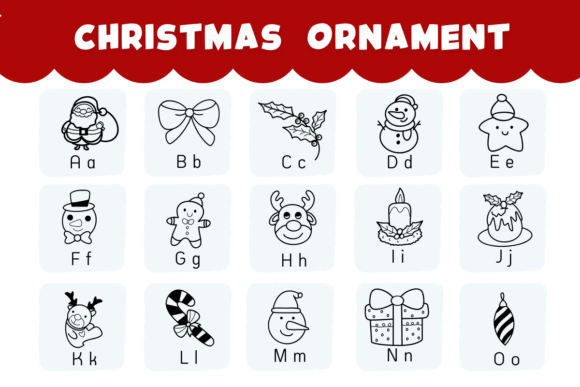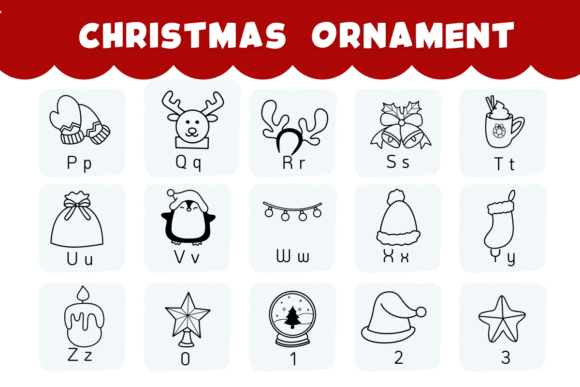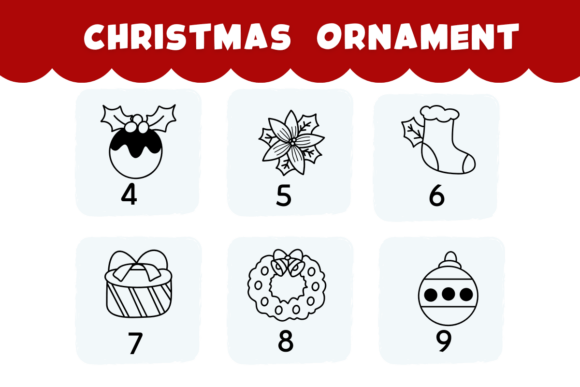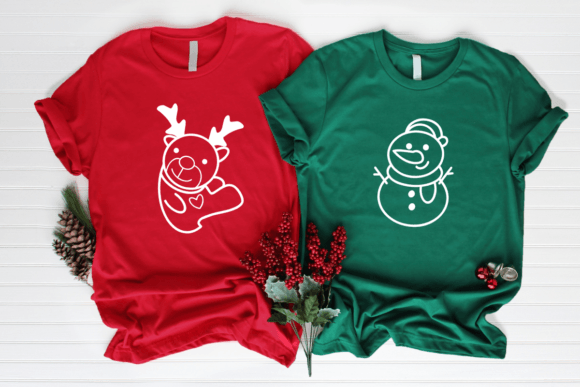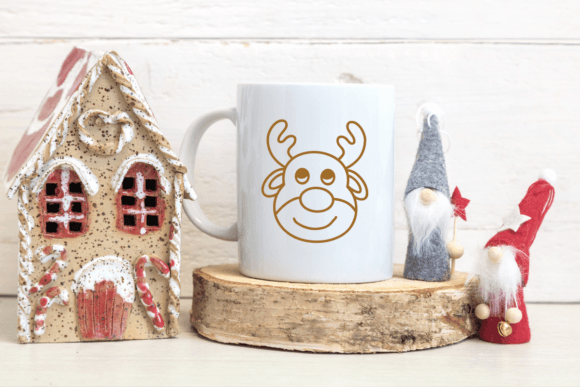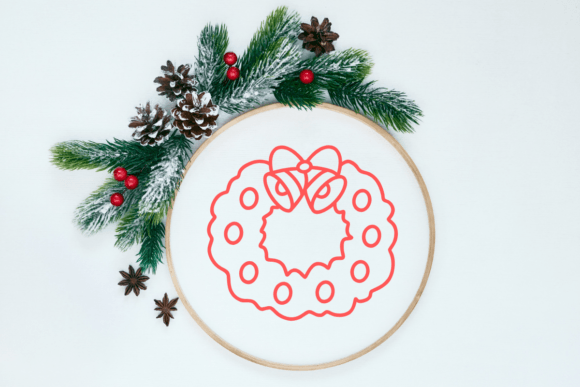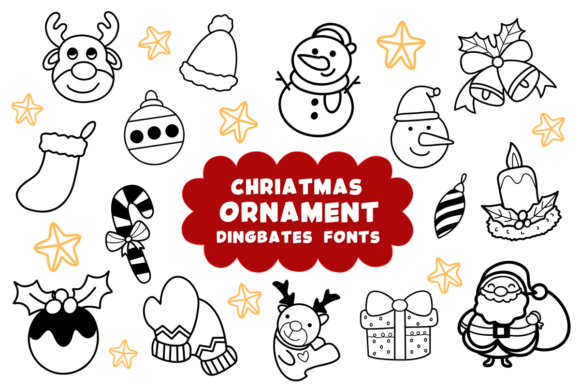
Deck the Halls with Christmas Ornament Font: A Festive Dingbat Font for Your Creative Projects
Are you looking for a unique and festive way to add some holiday cheer to your creative projects? Look no further than the Christmas Ornament Font, a delightful dingbat font that brings the magic of Christmas to your designs. This charming font is perfect for crafters, designers, and anyone looking to add a touch of holiday sparkle to their work.
What is Christmas Ornament Font?
Christmas Ornament Font is a dingbat font that features a wide range of Christmas-themed ornaments, including bells, stars, snowflakes, and more. Each character in the font is carefully designed to resemble a festive Christmas ornament, making it perfect for adding a holiday touch to your projects. Whether you’re creating wedding invitations, DIY crafts, decorations, logos, or any other type of creative project, this font is sure to bring some festive fun to your designs.
Ideas for Using Christmas Ornament Font
So, what can you create with Christmas Ornament Font? The possibilities are endless! Here are a few ideas to get you started:
- Wedding Invitations: Add a touch of holiday cheer to your wedding invitations with Christmas Ornament Font. You can use the font to create festive headers, footers, and even monograms.
- DIY Crafts: Use Christmas Ornament Font to create custom labels, tags, and cards for your DIY crafts. Whether you’re making ornaments, gift tags, or decorations, this font is sure to add a festive touch.
- Decorations: Create custom holiday decorations, such as banners, garlands, and signs, using Christmas Ornament Font. You can use the font to add a festive touch to your holiday decor.
- Logos: Use Christmas Ornament Font to create festive logos for your business or personal brand. Whether you’re a holiday-themed business or just want to add some festive fun to your logo, this font is sure to deliver.
Benefits of Using Christmas Ornament Font
So, why should you use Christmas Ornament Font for your creative projects? Here are just a few benefits:
- Unique and Festive: Christmas Ornament Font is a unique and festive way to add some holiday cheer to your designs. Unlike traditional fonts, this dingbat font features a wide range of Christmas-themed ornaments that are sure to stand out.
- Versatile: Christmas Ornament Font is versatile and can be used for a wide range of creative projects, from wedding invitations to DIY crafts and decorations.